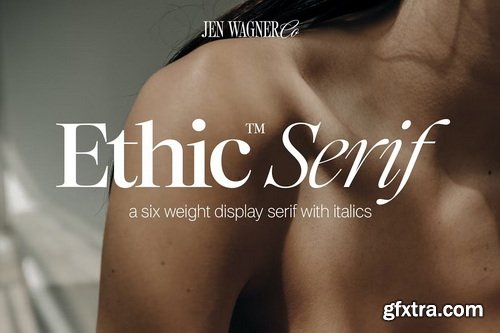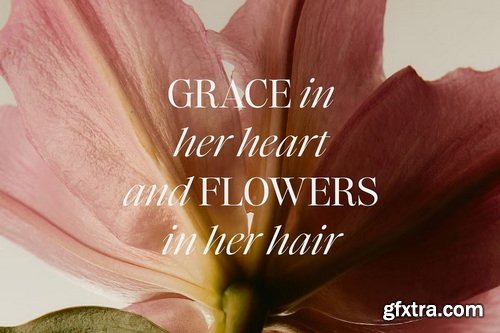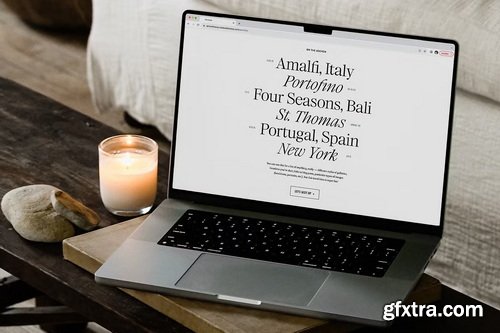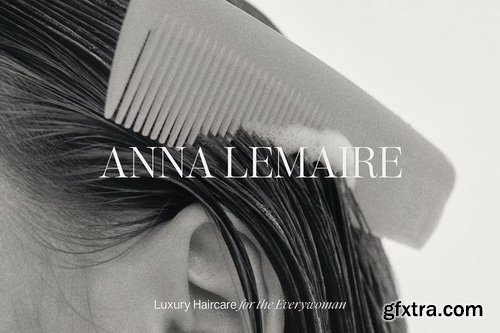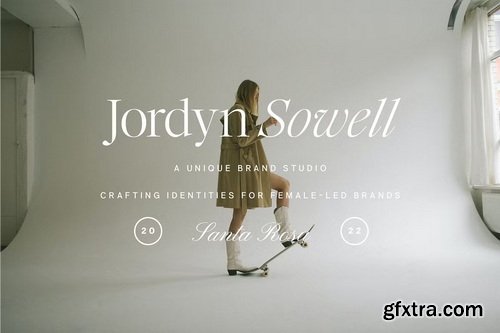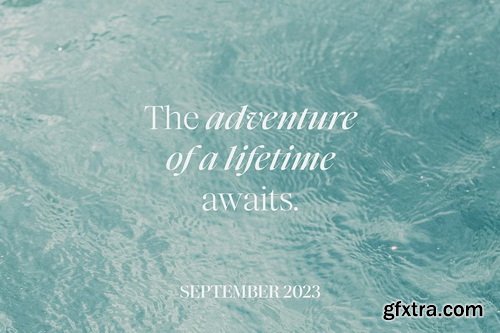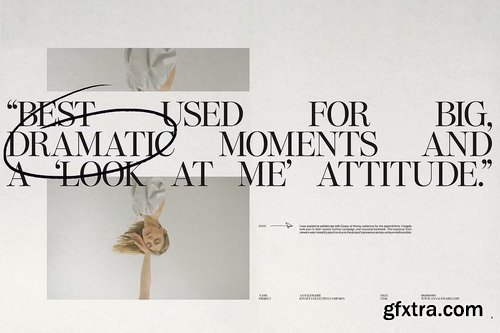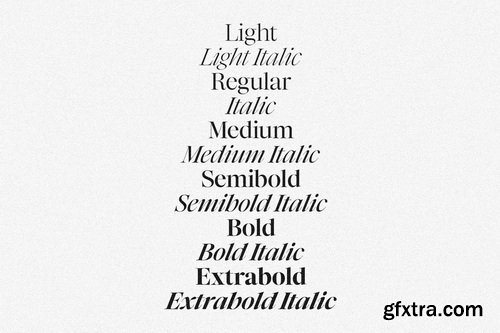
CreativeMarket - Ethic Serif 6-Weight Classy Family
Say hello to Ethic™ Serif, a stunning serif family that lives for being the center of attention. Use this classic, refined serif for large-scale headers, big text moments, or gorgeous quotes. Ethic™ Serif is a 6-weight typeface that was built to be the center of attention. With stunning contrast, organic curves, and sharp italics, Ethic Serif is a phenomenal go-to for any luxe branding or type-focused project. (Hint: the more I’ve used it, the more I love Ethic Serif paired with Neue Swiss.)